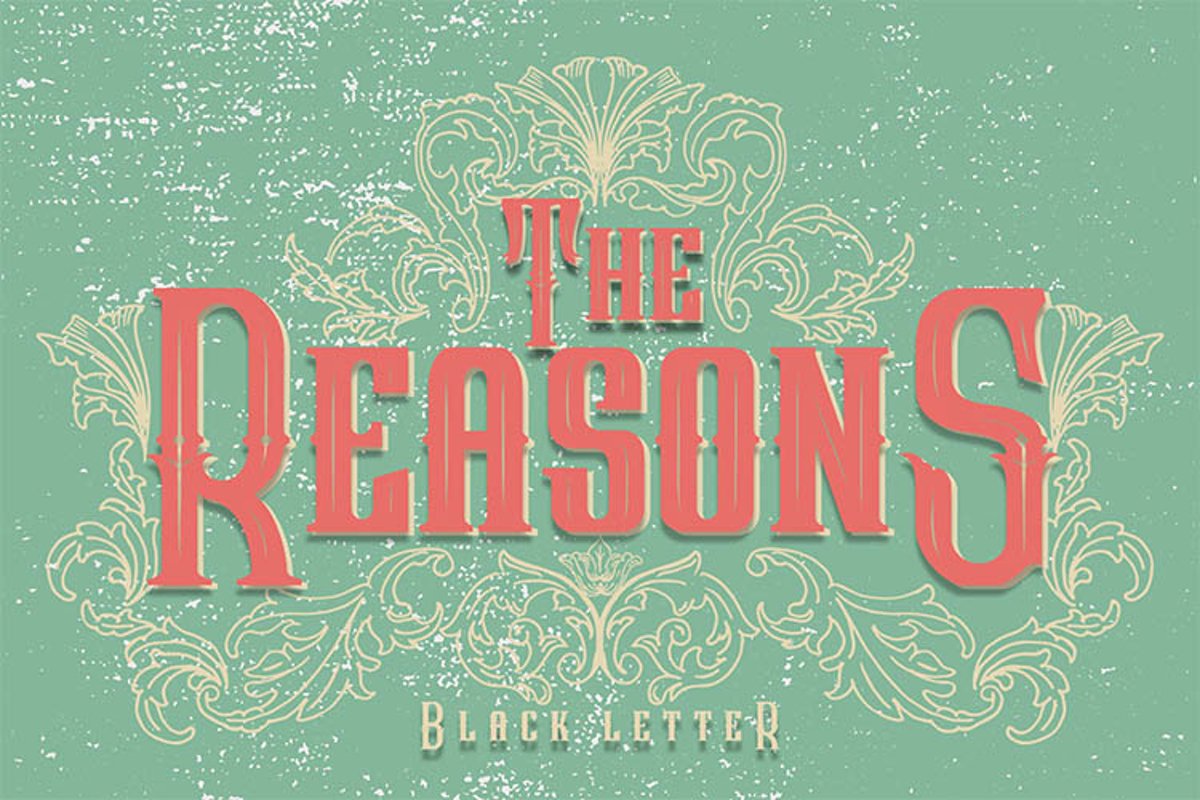
The Reasons Black Letter Font Extra Bonus
The Reasons Regular
The Reasons
The Reasons Black Letter
Everyone needs a reason for a career as a Graphic designer. This font is a reason for us to continue working and create multifunctional fonts to make it easier for our Consumer to work. therefore, we named this font by "The Reasons" in Black Letter Style.
The Reasons Black Letter expected you will find fantastic Logos, Branding, Tattoo, Vintage Logo, Poster, Film, Movie, Desktop and Display font.
The Reasons Black Letter Extra Ornament and Illustration is very suitable for anything your design product, like as Logos, Trade Mark, Poster, Business Cards, Game Magazine, Gift Cards, Cloth, T-Shirt, Tattoo Brands, Coffee, Restaurant, Food Car, CD and DVD Cover, Wall, Frame, and typing in your PC. I think... This Font you can use and Apply for anything you want. in a modern, classical, vintage or retro look in Your Works.
The Reasons Black Letter in font, Come with two style, Regular and Inline Style in otf and ttf.